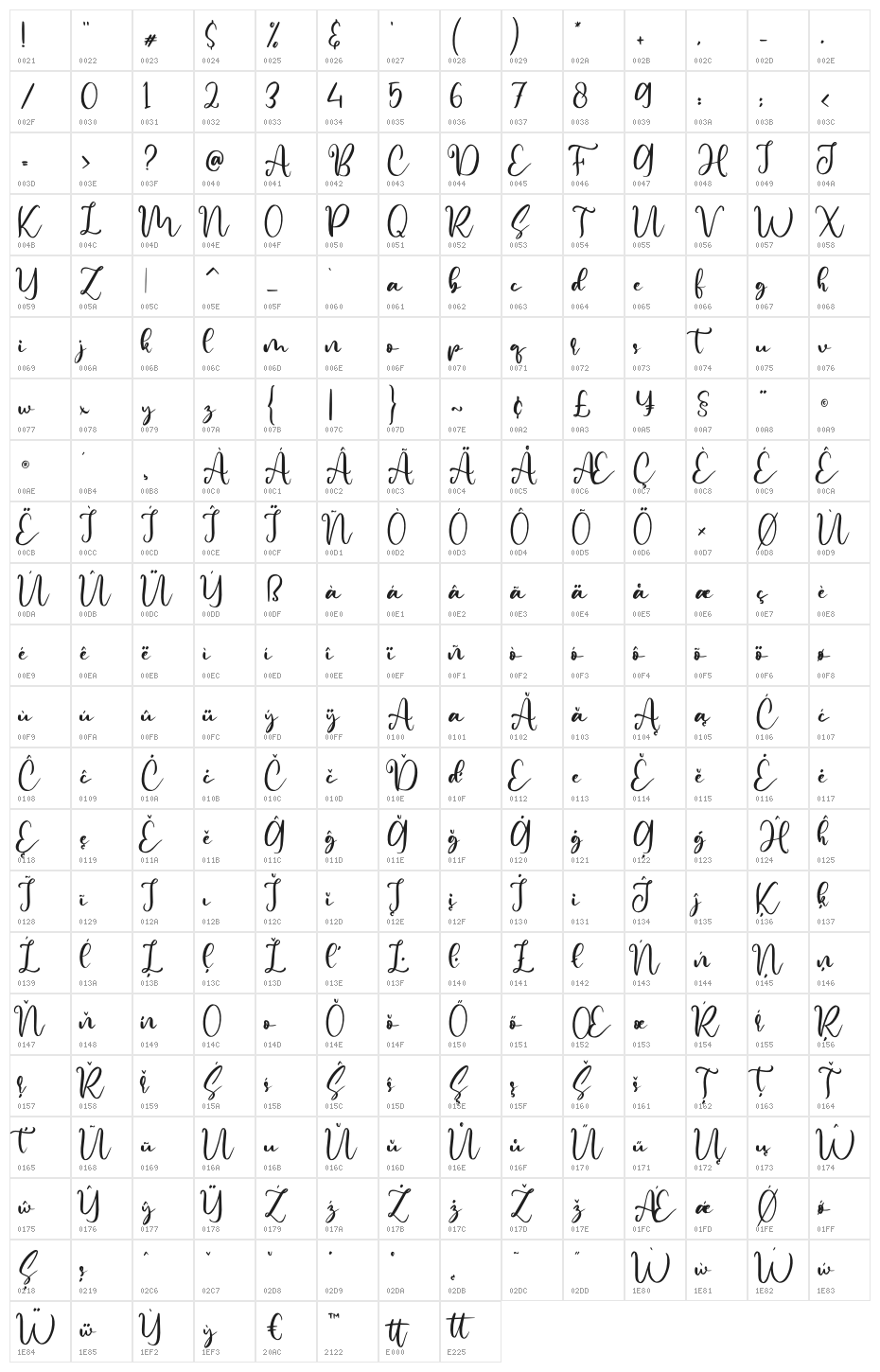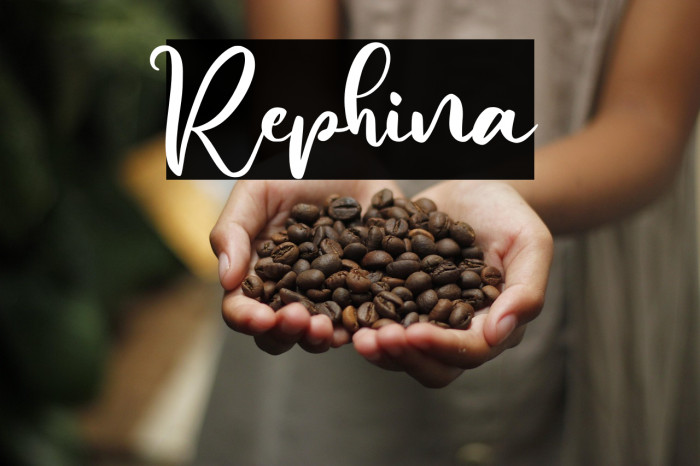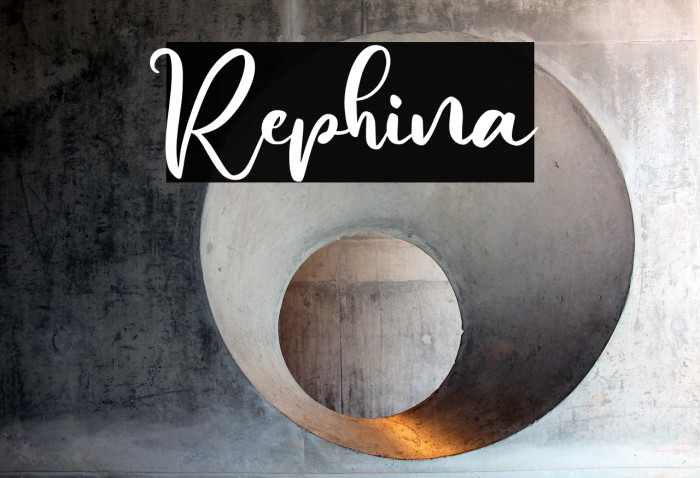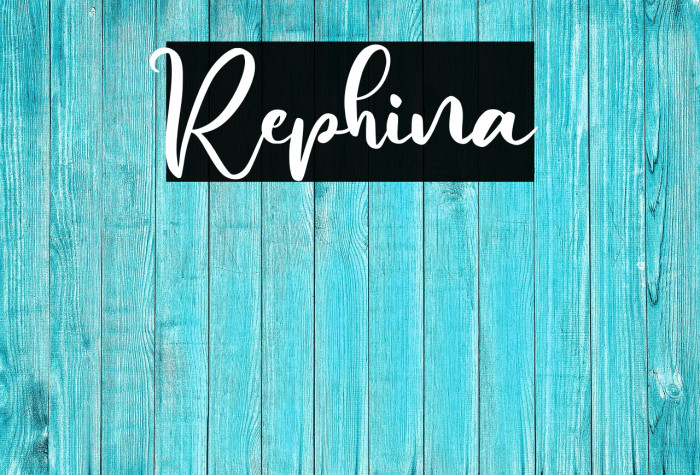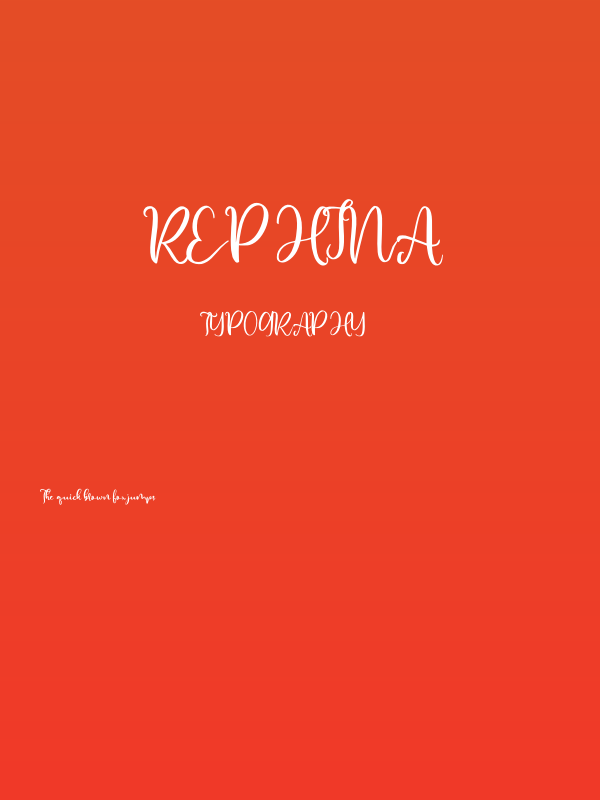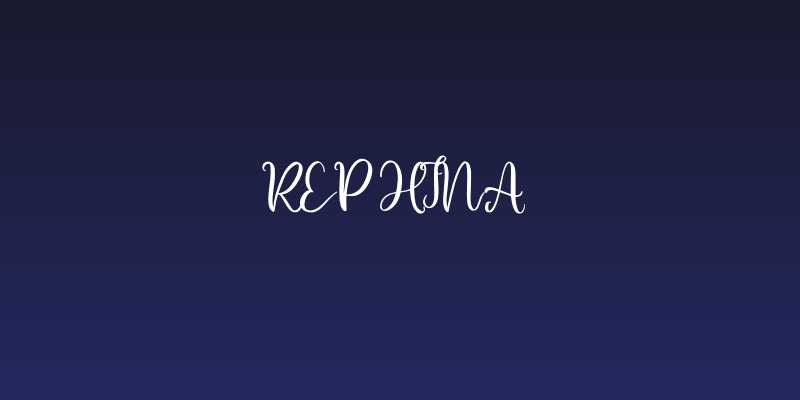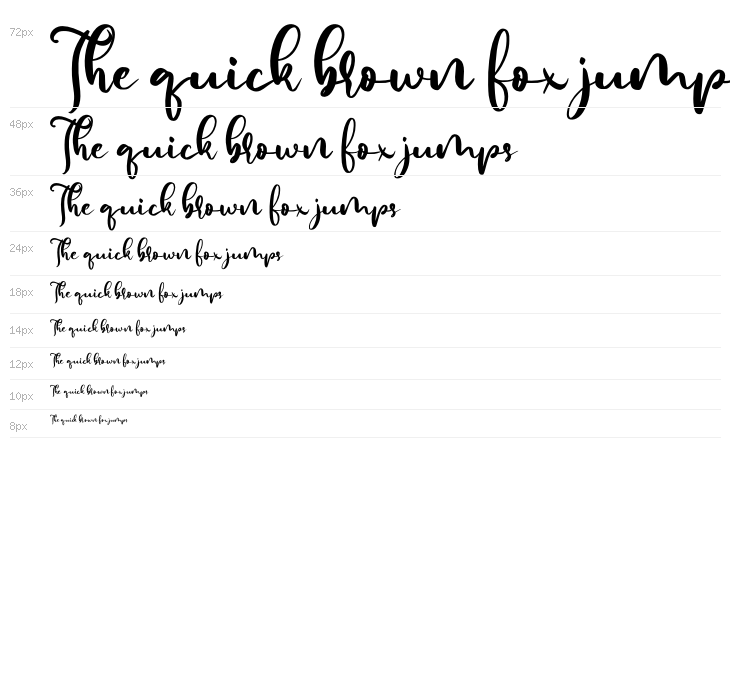
Rephina Font
Rephina Description
This font exudes a playful and elegant script style, characterized by its flowing, cursive letters that mimic the fluidity of handwriting. The uppercase letters are bold and sweeping, with dramatic loops and curves that add a sense of movement and grace. The lowercase letters maintain a consistent style, with rounded forms and smooth connections between characters, enhancing readability while retaining a whimsical charm. The numerals are distinct and clear, following the same cursive style, making them easily recognizable. Special characters are creatively integrated, maintaining the overall aesthetic of the font. The font's design is perfect for adding a personal touch to any project, combining elegance with a modern flair.
| Use Case | Logos, Invitations, Decorative text |
| Proposed Projects | Ideal for wedding invitations, greeting cards, branding, and logo design. |